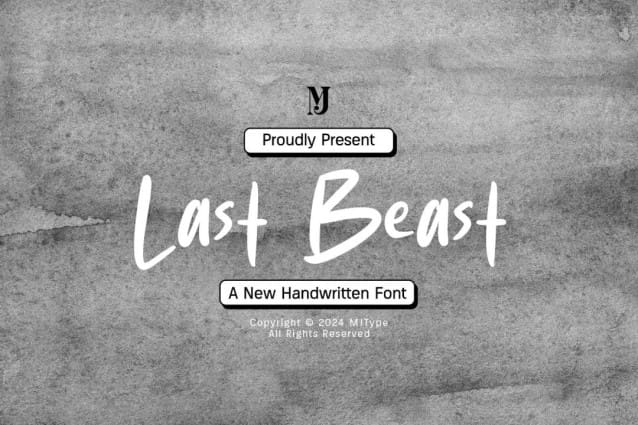
Last Beast Font
Last Beast Font is a simple and friendly handwritten font. Its natural and unique style makes it incredibly fitting to a large pool of designs. The only limit is your imagination!